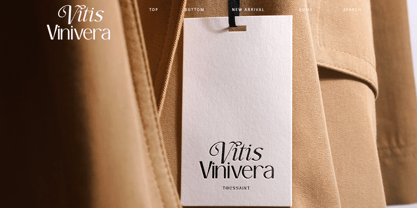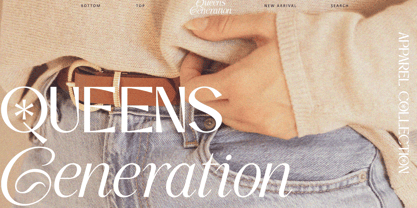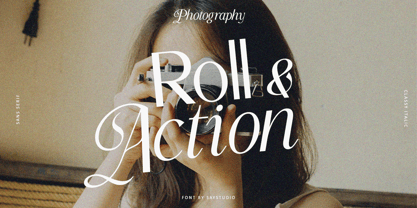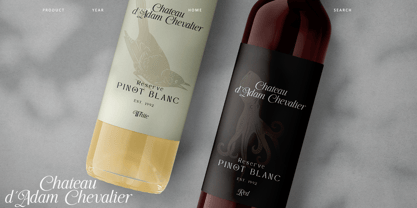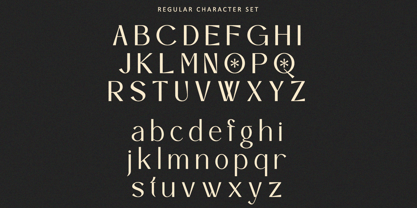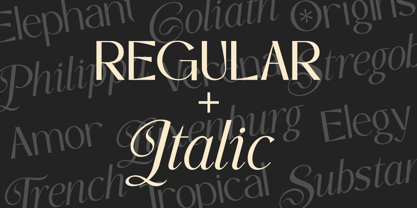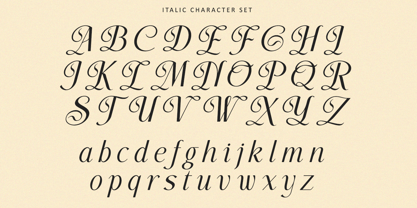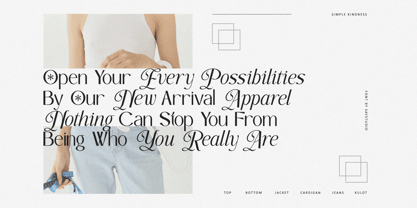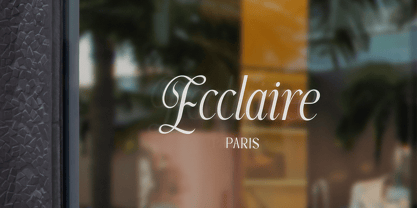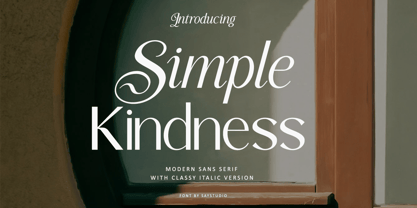
Simple Kindness
by Say Studio
The Simple Kindness Font Family was designed by Mussyayin and published by Say Studio. Simple Kindness contains 2 styles and family package options. More about this family
Simple Kindness is modern sans serif with classy italic version. Inspired by historical letterforms for its construction, this typeface also incorporates new and dynamic forms. Simple Kindness has 2 styles: Roman and Italic uppercase form showing classy and unique character. Simple kindness is perfect for creating classy and clean and elegant designs such as logos, packaging, editorials and more.
- Classy Uppercase Italic
Designers: Mussyayin
Foundry: Say Studio